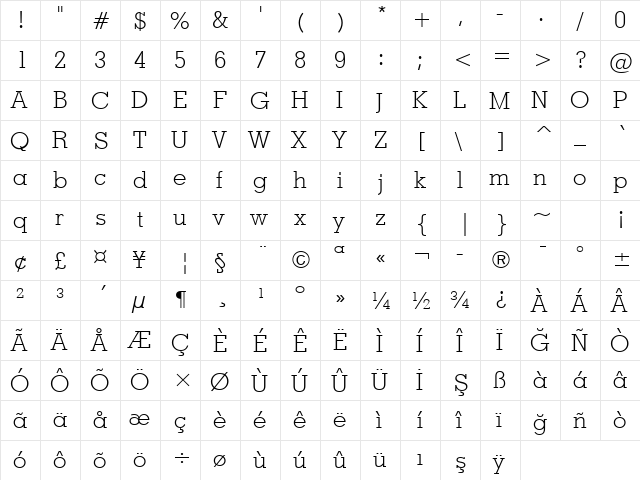
Louisville BT Light
Design Context for Louisville BT Typeface
Louisville BT takes a measured approach to typography — its balanced proportions and neutral character make it a reliable workhorse for both digital and print work. Its slender proportions lend an understated elegance to any composition.
Pro Tip: Use Louisville BT in both headline and body roles to test its range before committing to a single application.